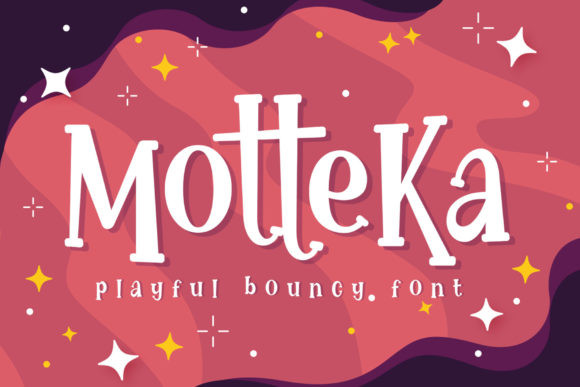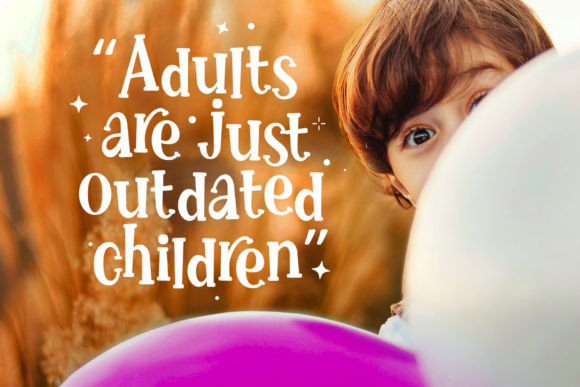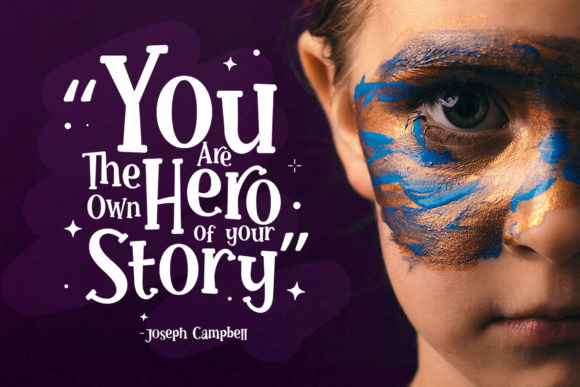
Motteka Font
Motteka is a playful and bouncy display font. Whether you are using it for cartoon-related designs, children’s games, quotes, titles, brand names, book covers, posters, or just any creation that requires a touch of beauty, this font is a great choice.